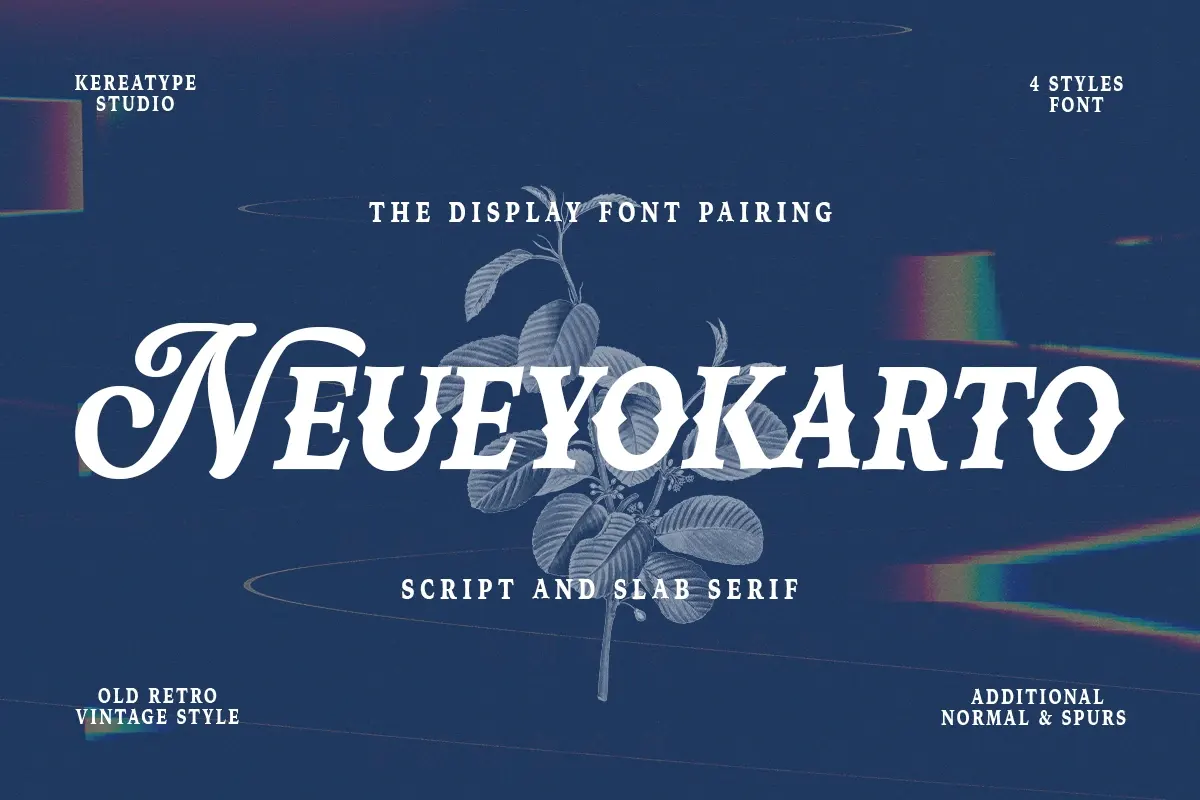
Neue Yokarto - Vintage Pair Font Free Download
Neue Yokarto – Vintage Pair Font Free Download
You must purchase this font for commercial use. However, you can download Neue Yokarto – Vintage Pair Font Free Download for testing purposes. Neue Yokarto is a stylish vintage-inspired font duo that combines a bold serif with a script or decorative accent, making it perfect for retro branding, logo design, packaging, posters, and editorial layouts that crave nostalgic charm with a modern twist.
The serif in Neue Yokarto carries strong vintage character—featuring sharp angles, elegant curves, and bold presence—while its pairing font adds personality and contrast, allowing you to create layered and expressive typography. This combo works beautifully for café logos, barbershop signs, apparel branding, and anything with a heritage or handcrafted vibe.